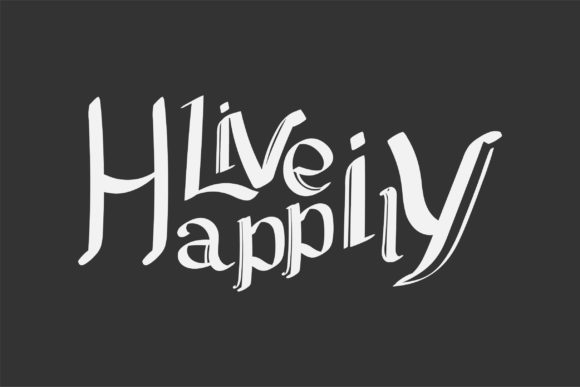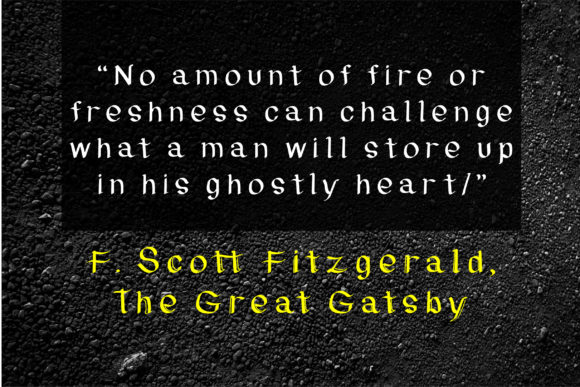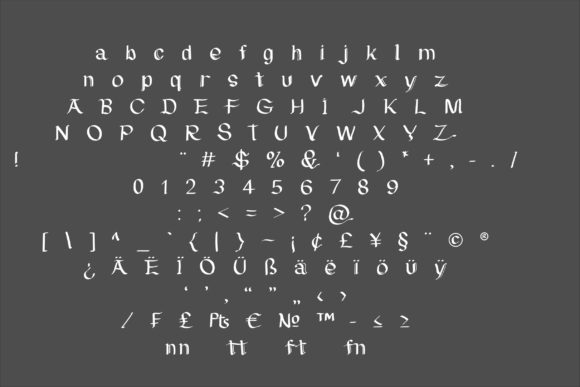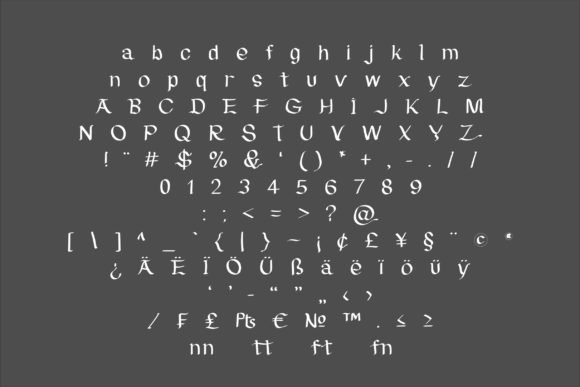
Introduction to Joanne Font
As a designer, you know the feeling of staring at a blank canvas, waiting for that spark of inspiration to strike. It’s the moment when you know exactly what you want to create, but struggle to find the perfect font to bring it all together. That’s where the Joanne Font comes in – a modern twist on a classic blackletter font that’s sure to add a unique touch to any design project.
With its elegant, high-quality design, Joanne Font is a valuable resource for designers looking to elevate their creative projects. Whether you’re working on a logo, poster, or website, this font is the perfect addition to give your design a distinctive edge. And the best part? It’s available for free download, making it an accessible design resource for designers of all levels.
Key Features of Joanne Font
- High-quality font designed for creative projects, ideal for use in graphic design, digital art, and other visual applications.
- Transparent background, making it easy to use in designs that require a clear or textured background.
- Includes a comprehensive character set, featuring a wide range of letters, numbers, and symbols.
- High-resolution design, suitable for use in large-scale applications, such as billboards and signage.
- Designed by a professional font designer, ensuring a high level of quality and attention to detail.
Honest Review: Joanne Font
As a designer, I’m always on the lookout for high-quality design resources to elevate my creative projects. Recently, I had the chance to try out the Joanne Font, and I’m excited to share my honest review.
- ✨ High-quality design that’s perfect for modern projects
- ✨ Offers a range of font styles and weights to suit different design needs
Overall, I’m impressed with the Joanne Font. It’s a great addition to any designer’s toolkit, and it’s available for free download, making it a fantastic resource for creative projects on a budget.
I would recommend the Joanne Font to designers who are looking for a modern, high-quality font that’s easy to use. Just be aware of the limitations, and you’ll be good to go!
Use Joanne Font with a transparent background to create a seamless design. Experiment with different font sizes and styles to add visual interest to your design. You can also combine Joanne Font with other design elements to create a unique and creative project.
Joanne Font is suitable for a variety of design projects, including business cards, brochures, and social media graphics. You can also use the font to create custom logos and branding materials.